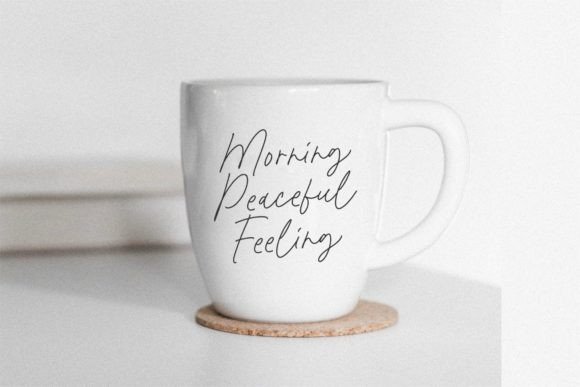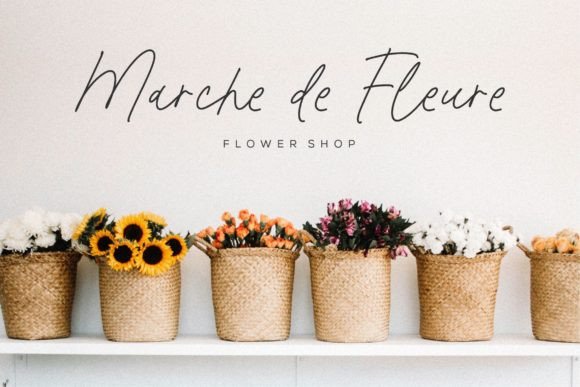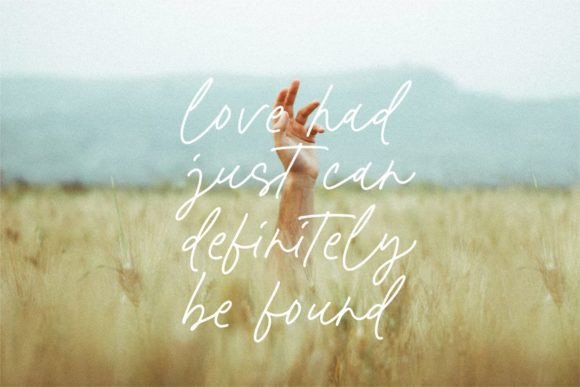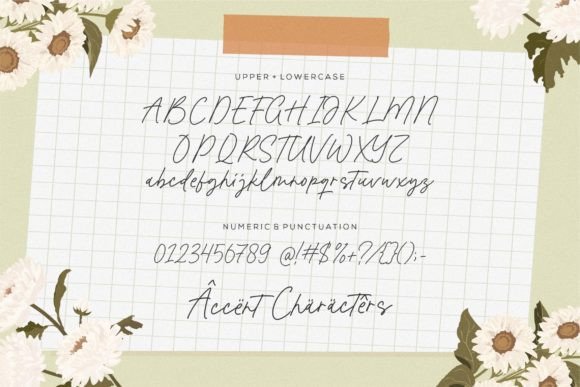
Introduction to Floral Bouquet Font
As a designer, there’s nothing quite like the thrill of bringing a creative project to life. The moment when all the elements come together, and your vision takes shape, is truly magical. But what about the foundation of that project – the font that sets the tone for the entire design? That’s where the Floral Bouquet Font comes in – a modern calligraphic script font that’s as versatile as it is beautiful.
With its smooth, effortless lines and understated sophistication, this font is the perfect choice for designers looking for a high-quality design resource that can elevate their work to the next level. Whether you’re working on a logo, branding, invitation, or packaging project, the Floral Bouquet Font is sure to make a lasting impression – especially when paired with a transparent background to really make it pop.
Key Features of Floral Bouquet Font
- High-quality design resource perfect for creative projects, including wedding invitations, floral arrangements, and more.
- Unique, hand-drawn design elements that add a touch of elegance and sophistication to any creative project.
Honest Review: Floral Bouquet Font
I recently stumbled upon the Floral Bouquet Font and was excited to dive in and see what it had to offer. As a designer, I’m always on the lookout for high-quality design resources to elevate my creative projects.
First impressions: the Floral Bouquet Font is a beautifully crafted font that’s perfect for adding a touch of elegance to your designs. The transparent background feature allows for seamless integration with your images, which is a major plus in my book.
- Perfect for adding a touch of elegance to your designs
⚠️ Limited character set, which may be a issue for some designers
⚠️ Not ideal for use in small font sizes
Overall, I’d say the Floral Bouquet Font is a solid addition to any designer’s toolkit. While it may have a few limitations, its high-quality design and transparent background feature make it a great choice for creative projects. If you’re looking for a beautiful font to add a touch of elegance to your designs, I’d definitely recommend giving the Floral Bouquet Font a try.
Some common use cases for the Floral Bouquet Font include wedding invitations, greeting cards, and floral-themed designs. To get the most out of this font, experiment with different font sizes, colors, and combinations to create unique and eye-catching designs.